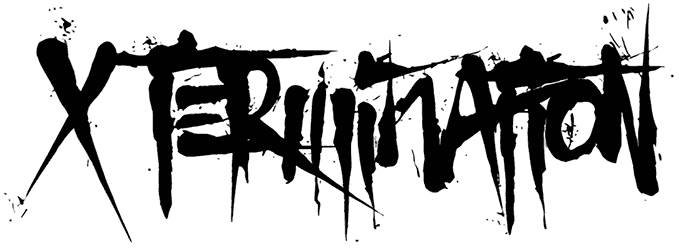
X Termination Font
Still haven’t found the right font for your Halloween theme design or your new horror movie poster? X Termination will solve your problem completely.
This horror font can make any viewer cringe with fear from the very beginning. Because it’s a spooky fantasy font that looks a lot like kidnappers’ handwriting. Although X Termination is a bit hard to read, it’s still a powerful font to add a sense of dread to your project.